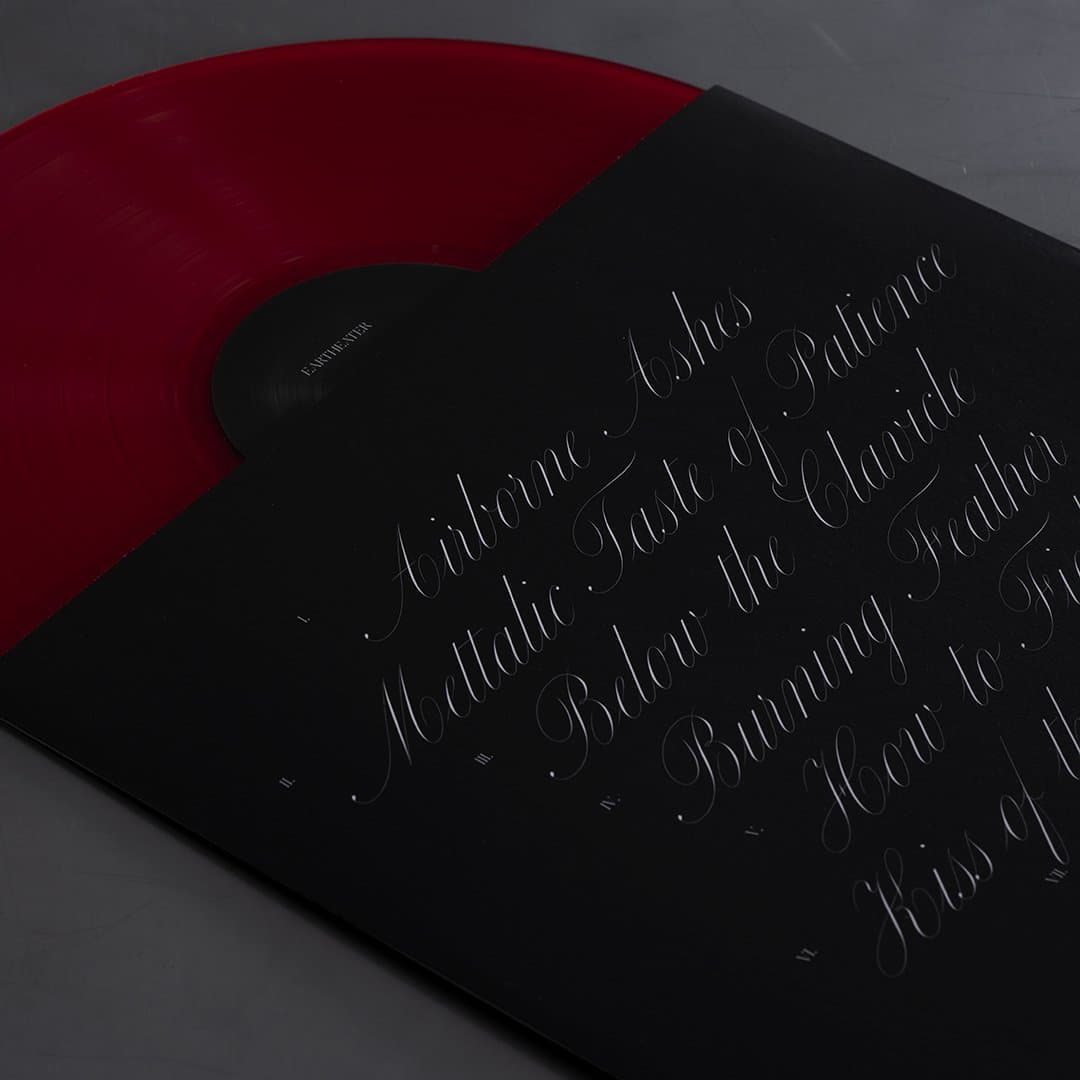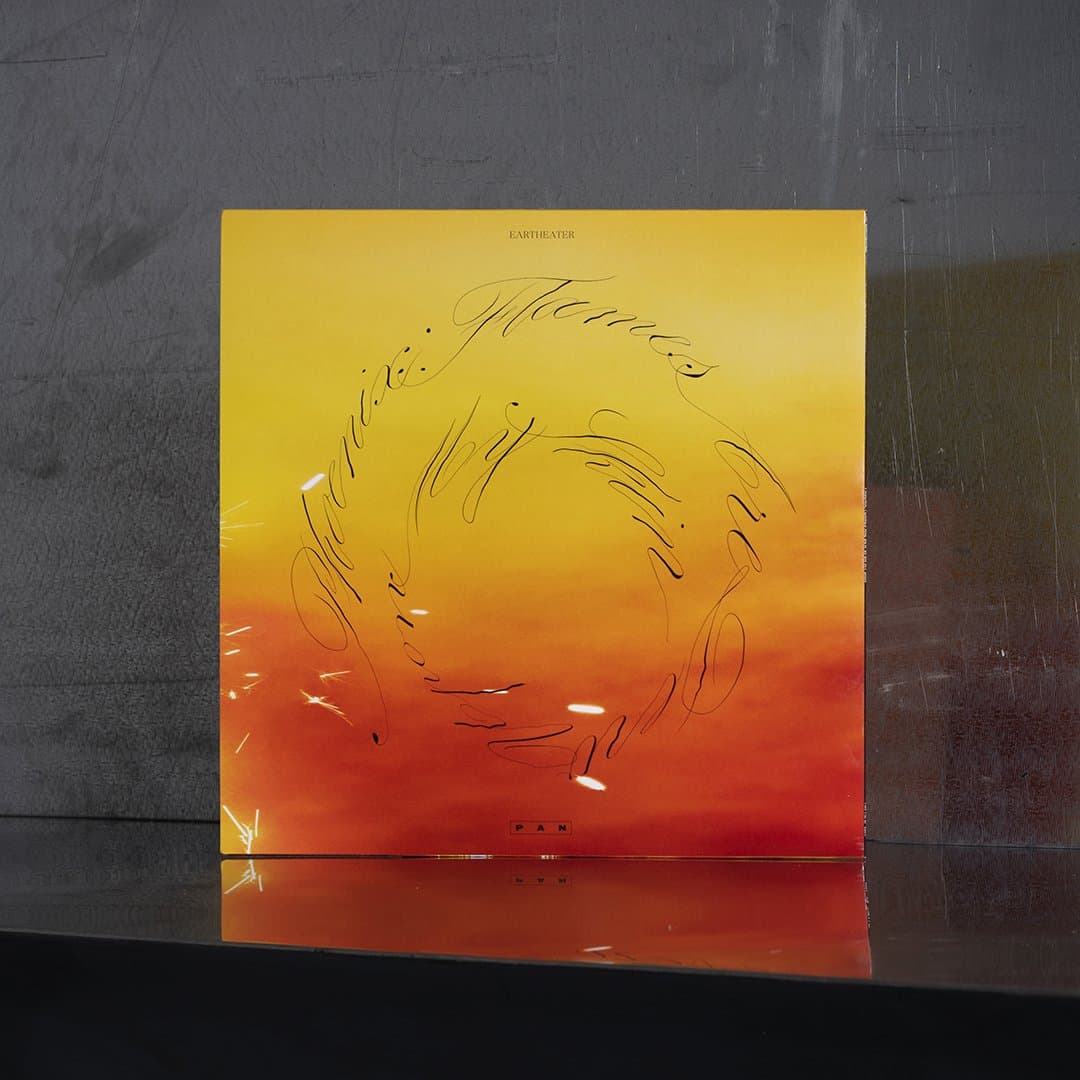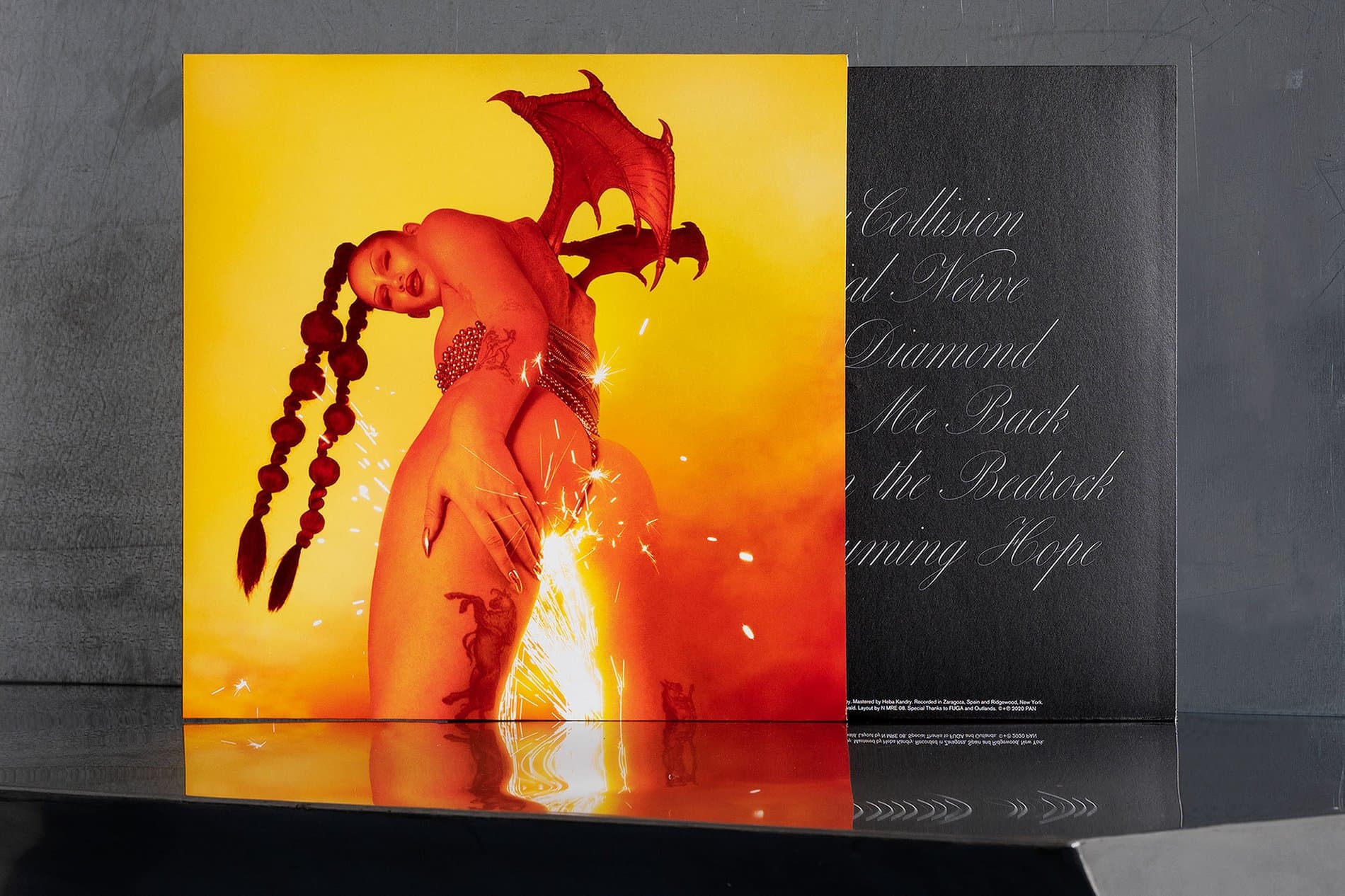
Eartheater & Carta Nueva
Phoenix: Flames Are Dew Upon My Skinis a new experimental album by Eartheater created during a ten-week artist residency in Zaragoza, Spain. The ethereal and enchanting sounds are complemented with fiery cover visuals and text set in Carta Nueva.
We got a chance to hear from N MRE 08, the design studio behind the album’s typography. “Carta has a perfectionist aspect that we really appreciate. The sheer melodic quality, its rhythm and elegance, creates a sensitive yet timeless feel,” they shared. “Eartheater’s ethereal frequencies and her brutally intimate lyrics work greatly with Carta — it’s like her lyrics were written in Carta in the first place. There is this gravity to it that sort of enchants and draws you into this cinematic universe and helps you make more sense of everything.”
Typeface: Carta Nueva